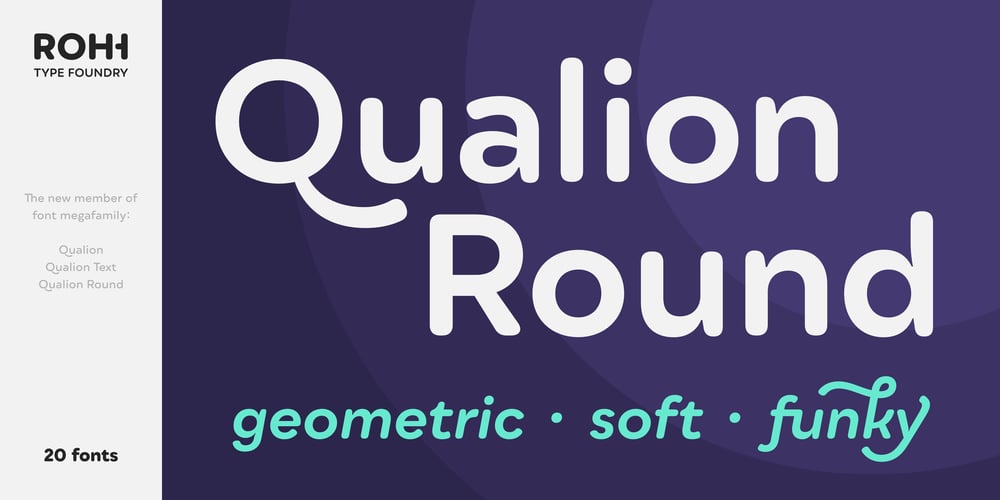
Qualion Round Font Family was designed by Roch Modrzejewski and published by ROHH. Qualion Round contains 20 styles and family package options. Qualion Round™ is a soft geometric sans serif with lots of swashes and ligatures, a sibling of successfulQualion™ and Qualion Text™ families. The rounded family is designed by carefully adjusting letter shapes, tapering and ink traps to in order to achieve optimal legibility as well as strong personality. The family is intended to serve in display situations like branding and advertising as well as in paragraph text and user interfaces. Its versatility can be even strengthened by pairing it with Qualion™ or Qualion Text™ families. Qualion Round™ family consists of 10 weights with corresponding oblique styles. It has extended language support, as well as broad number of OpenType features, such as case sensitive forms, standard and discretionary ligatures, swashes, terminal forms, stylistic sets, contextual alternates, lining, oldstyle, tabular figures, slashed zero, fractions, superscript and subscript, ordinals, currencies and symbols.